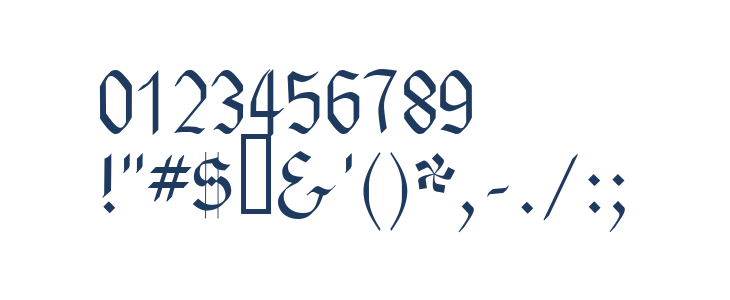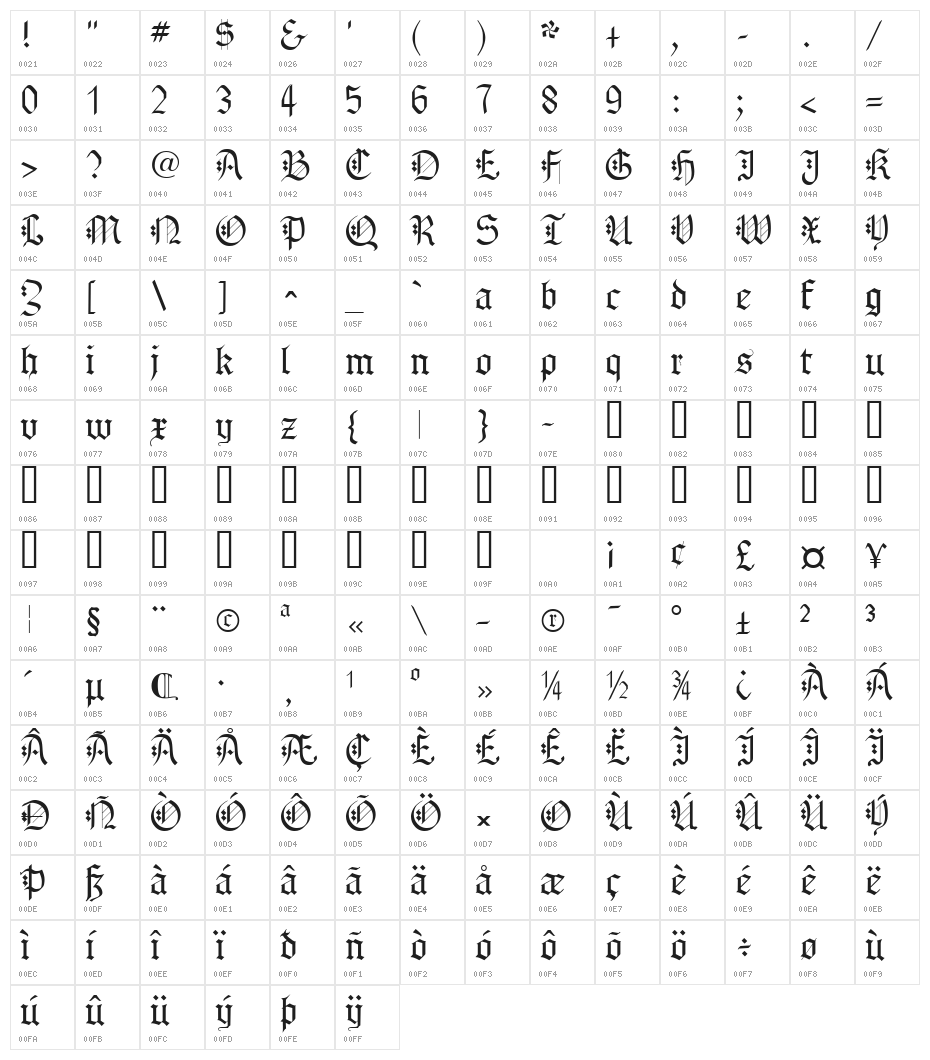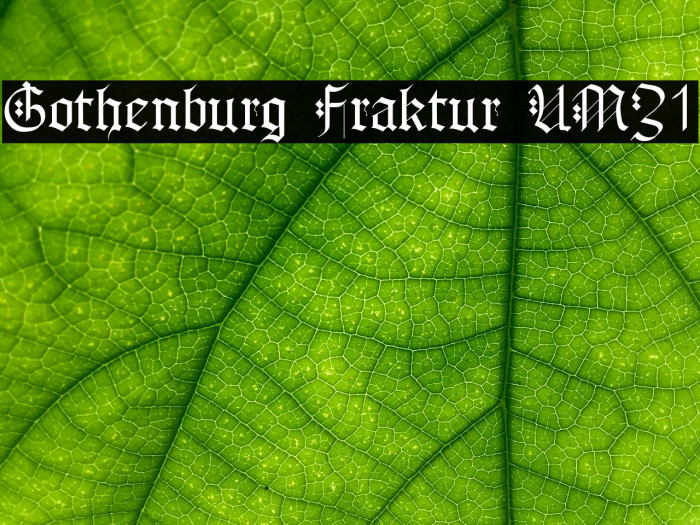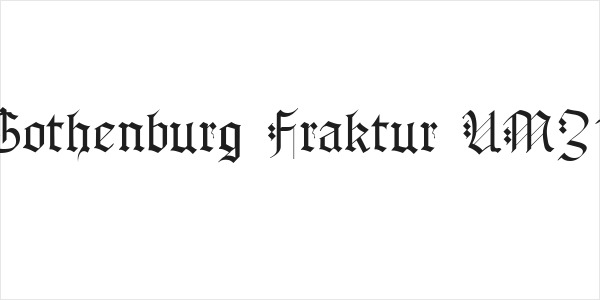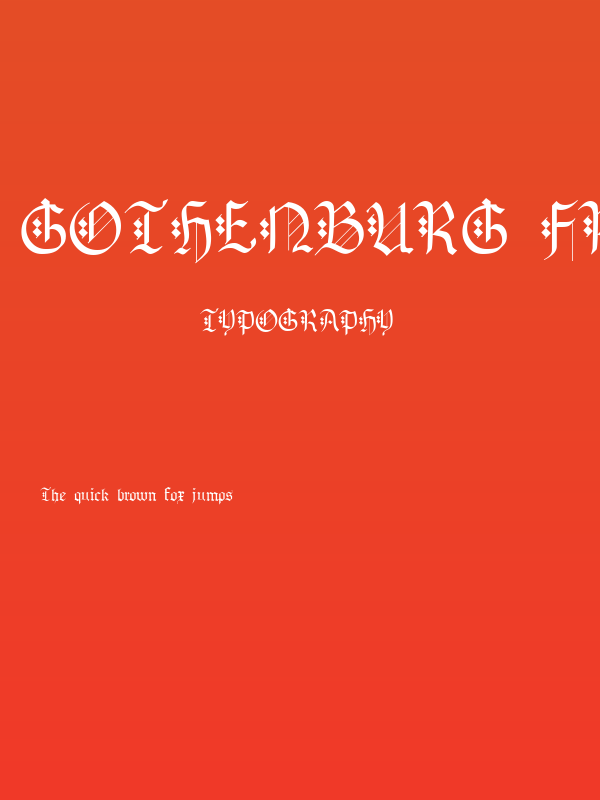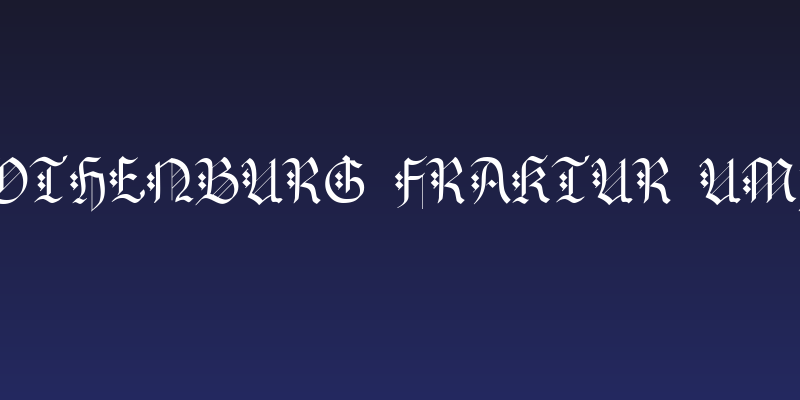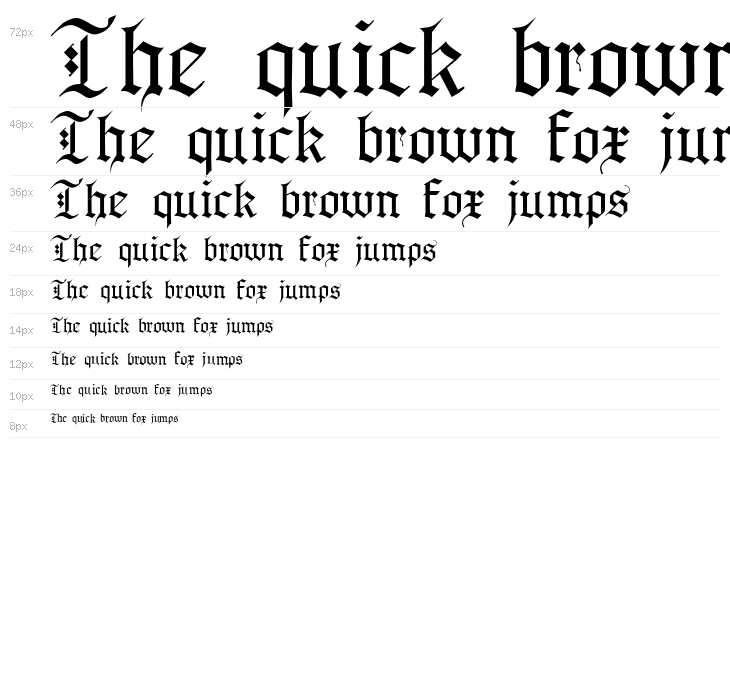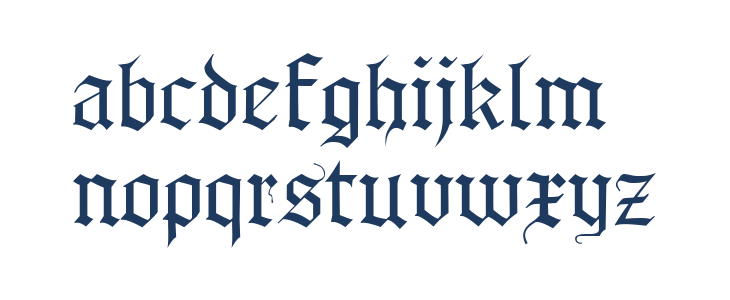
Gothenburg Fraktur UMZ1 Font
Gothenburg Fraktur UMZ1 Description
This font is a classic example of the Blackletter style, characterized by its intricate and ornate letterforms. The uppercase letters are adorned with sharp, angular serifs and elaborate flourishes, giving them a distinctly medieval appearance. The lowercase letters maintain the same level of detail, with a consistent stroke width that adds to the font's bold and dramatic presence. The numerals are equally stylized, featuring unique curves and angles that complement the overall aesthetic. Special characters are designed with the same attention to detail, ensuring a cohesive look across all glyphs. This font is perfect for projects that require a historical or gothic touch, such as event posters, book covers, or branding for vintage-themed products.
| Proposed Projects | Ideal for historical event posters, gothic-themed book covers, and vintage branding. |